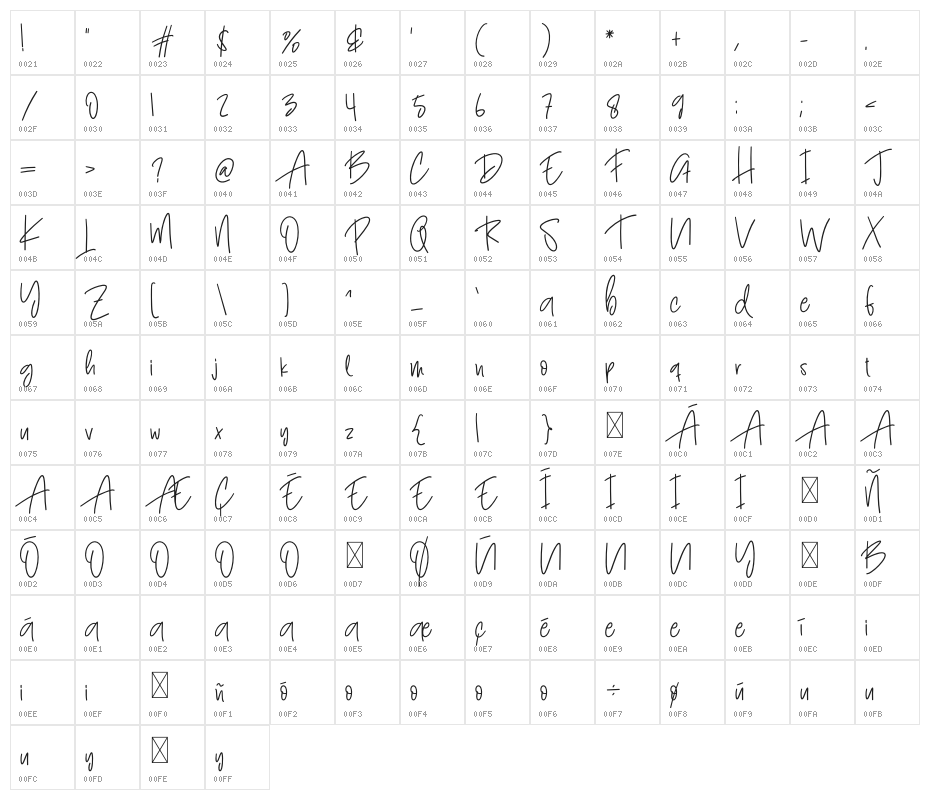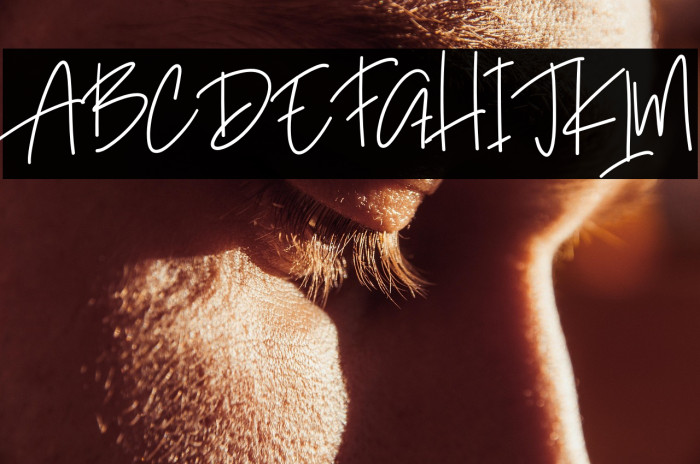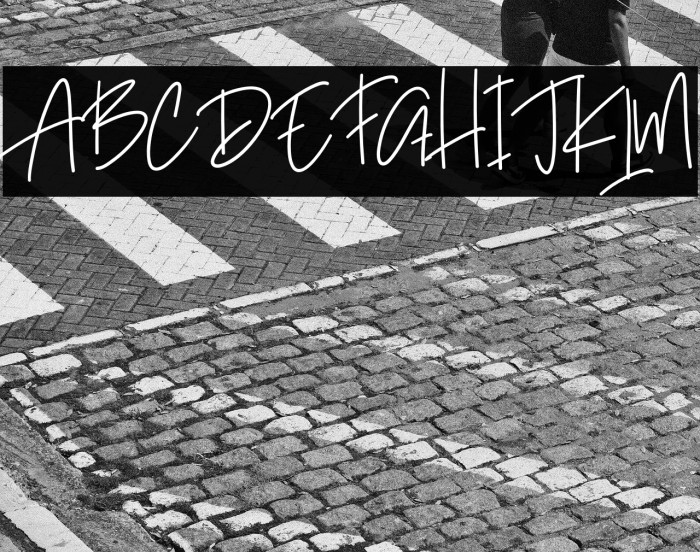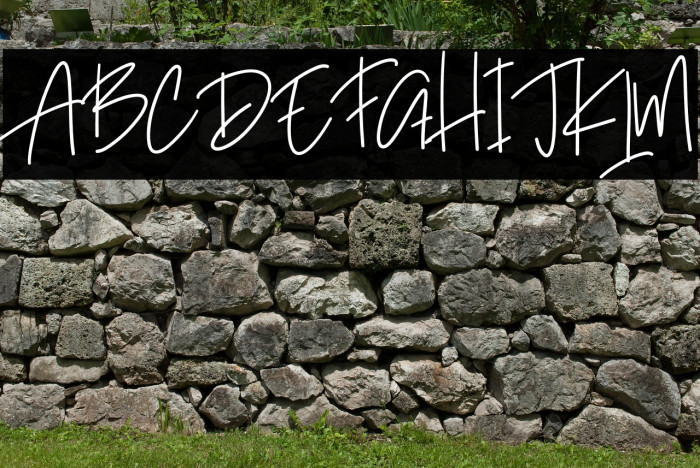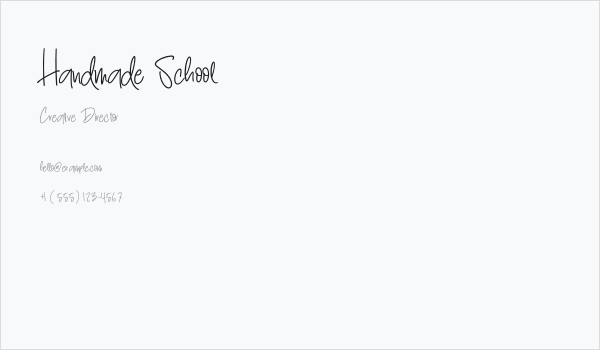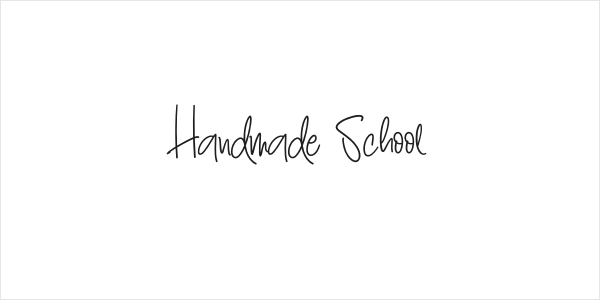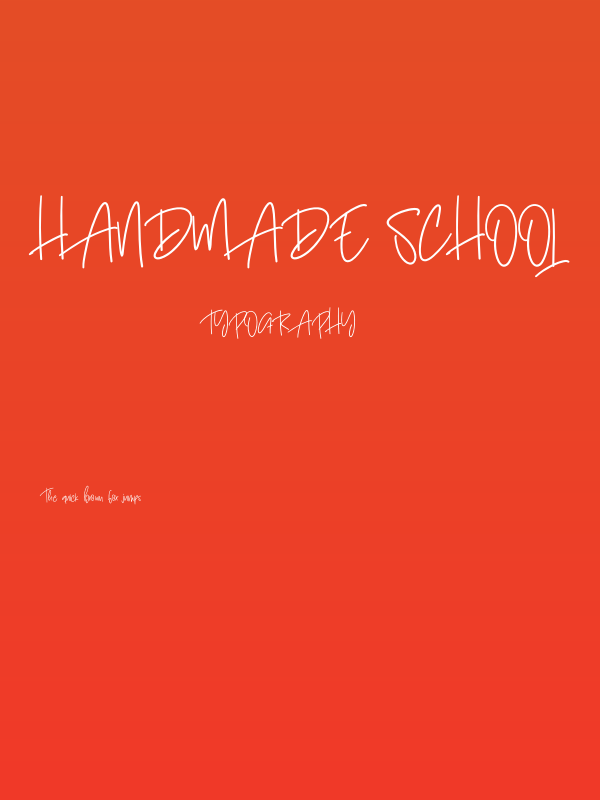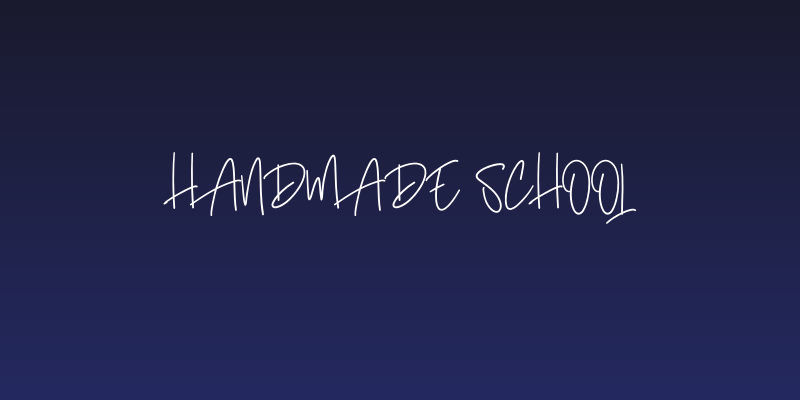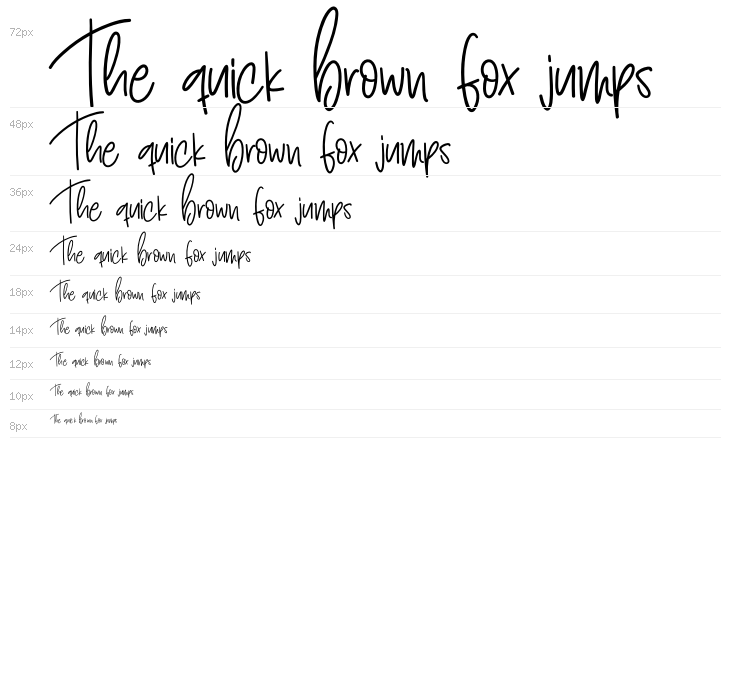
Handmade School Font
Handmade School Description
A playful, handwritten font with a casual and informal style, featuring irregular strokes and a natural flow.
| Use Case | Headlines, Informal text, Personal projects |
| Proposed Projects | Greeting cards, invitations, personal branding. |